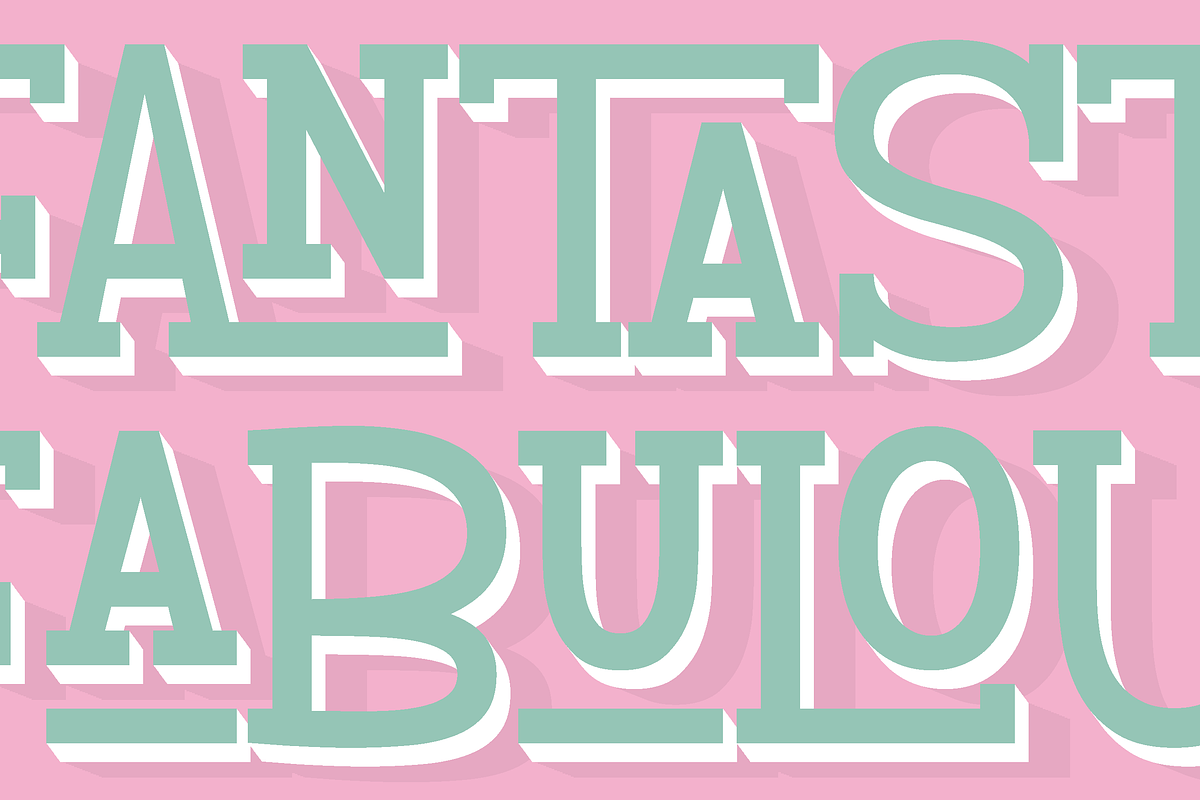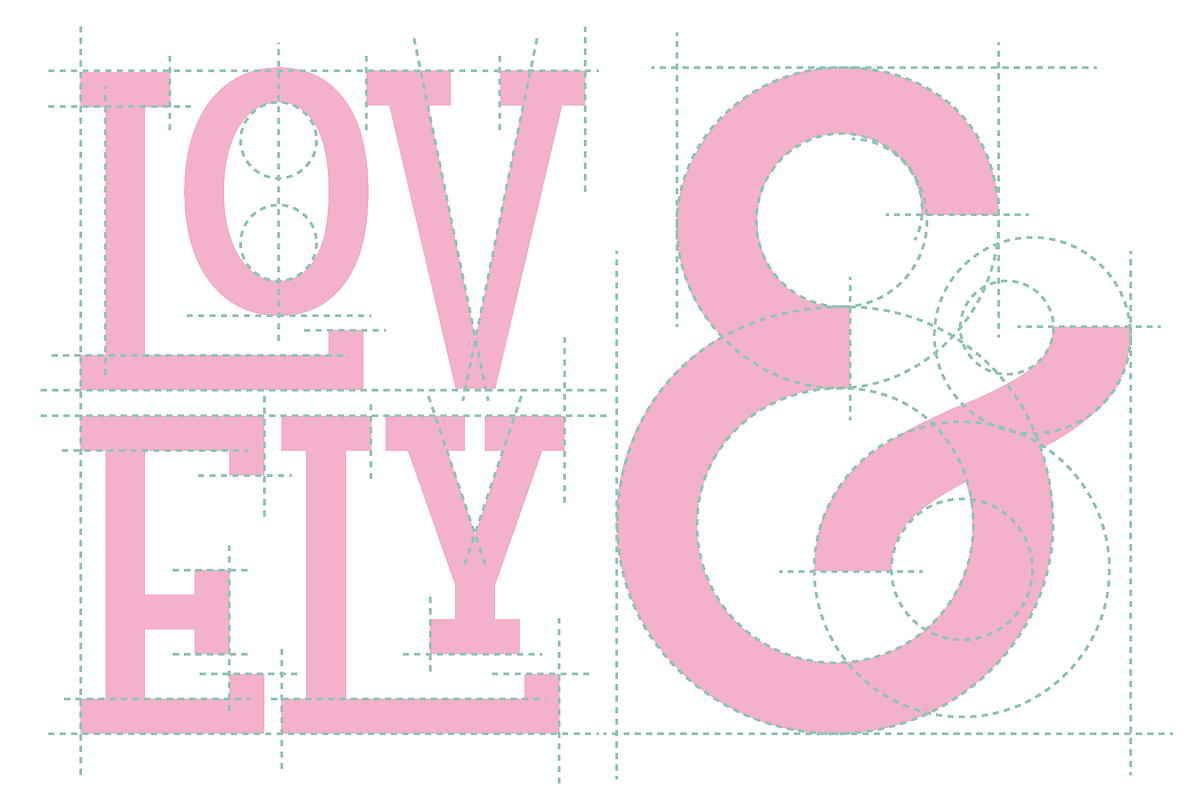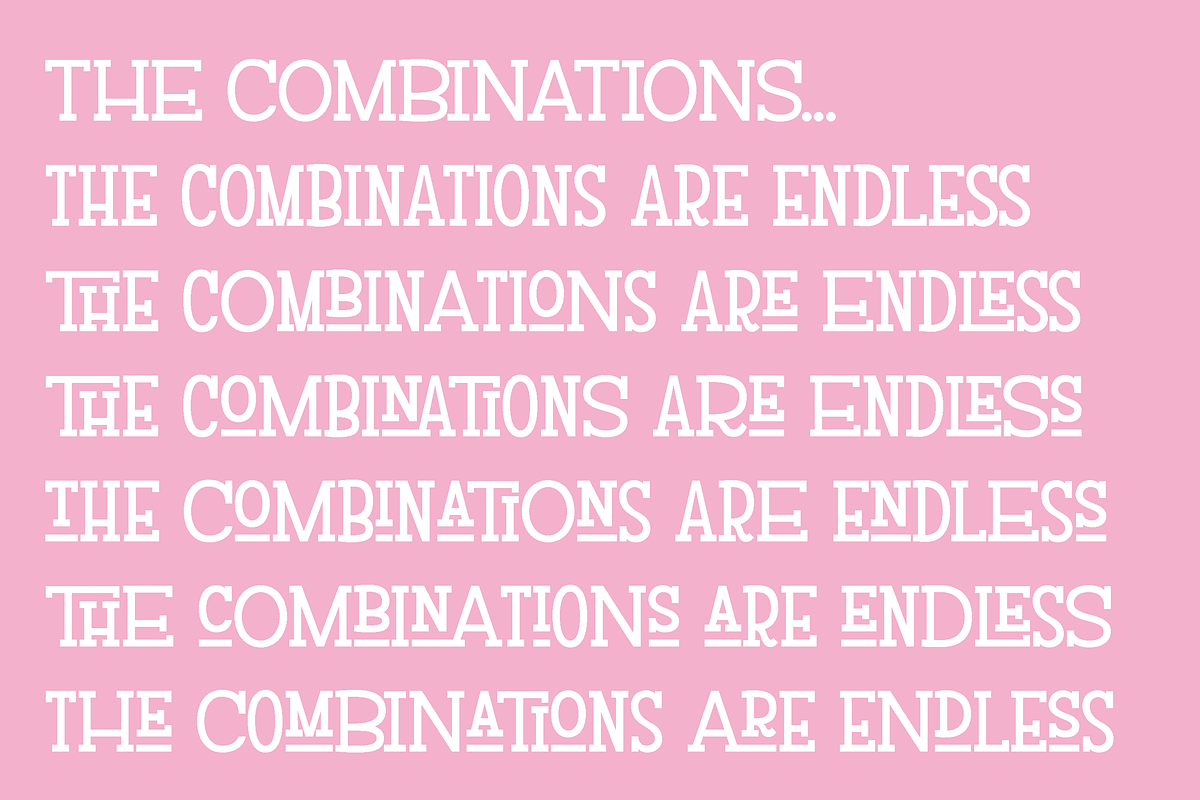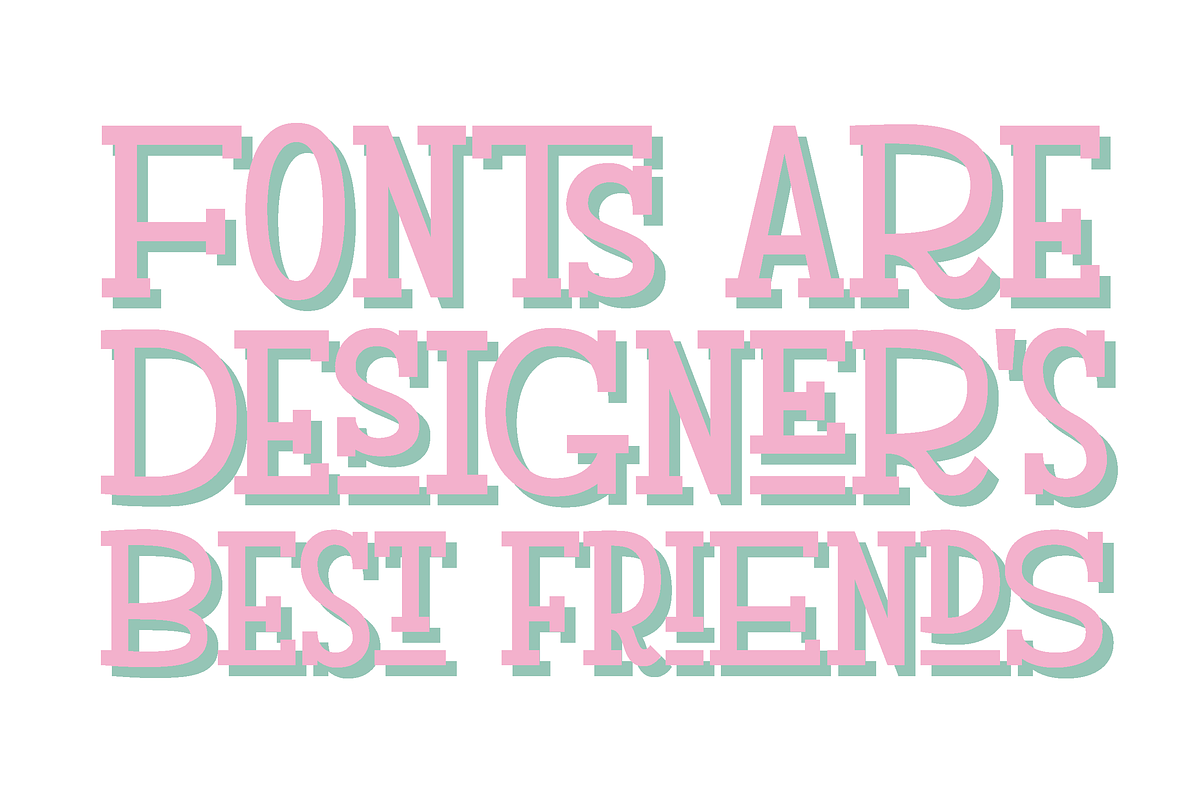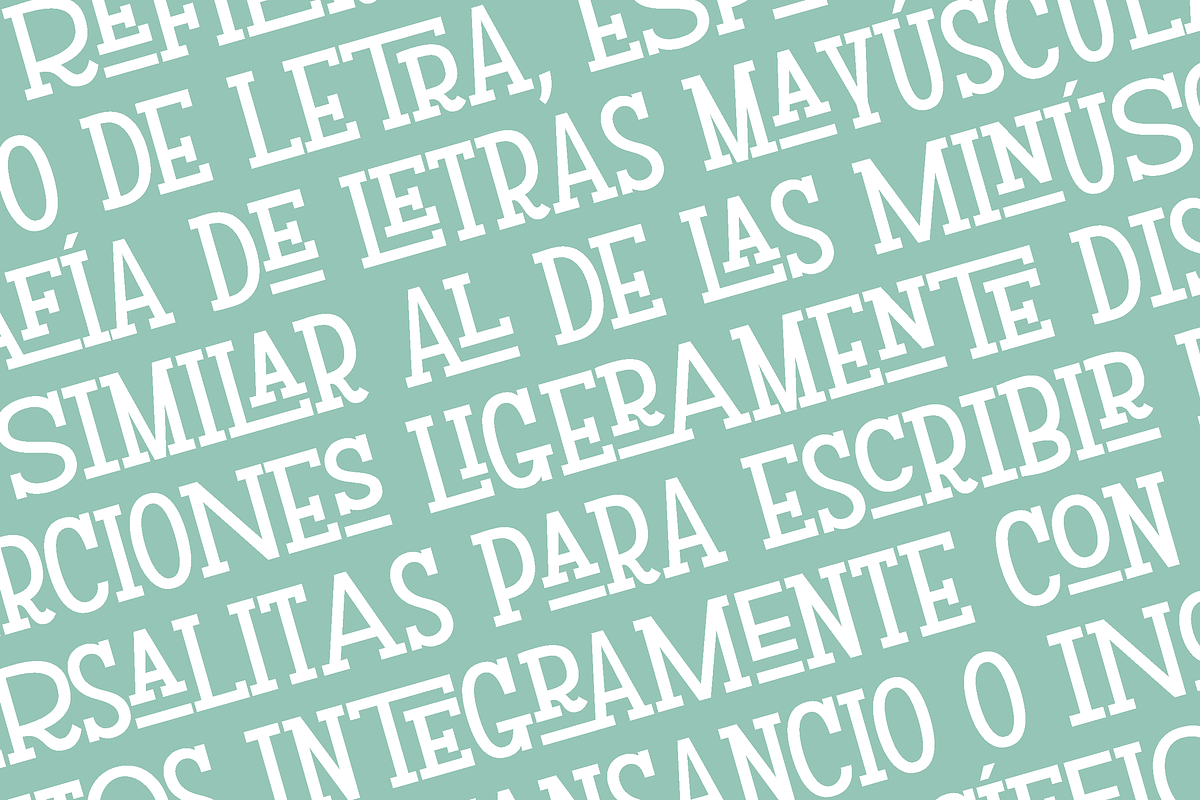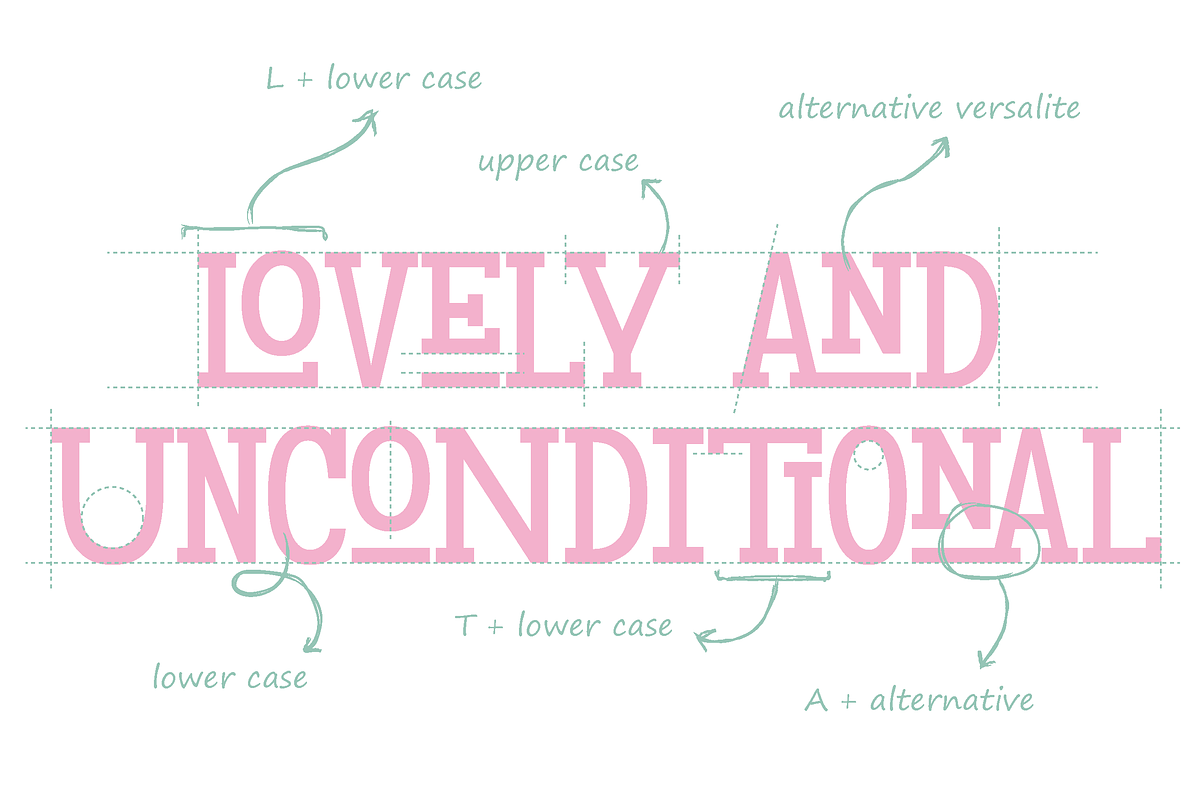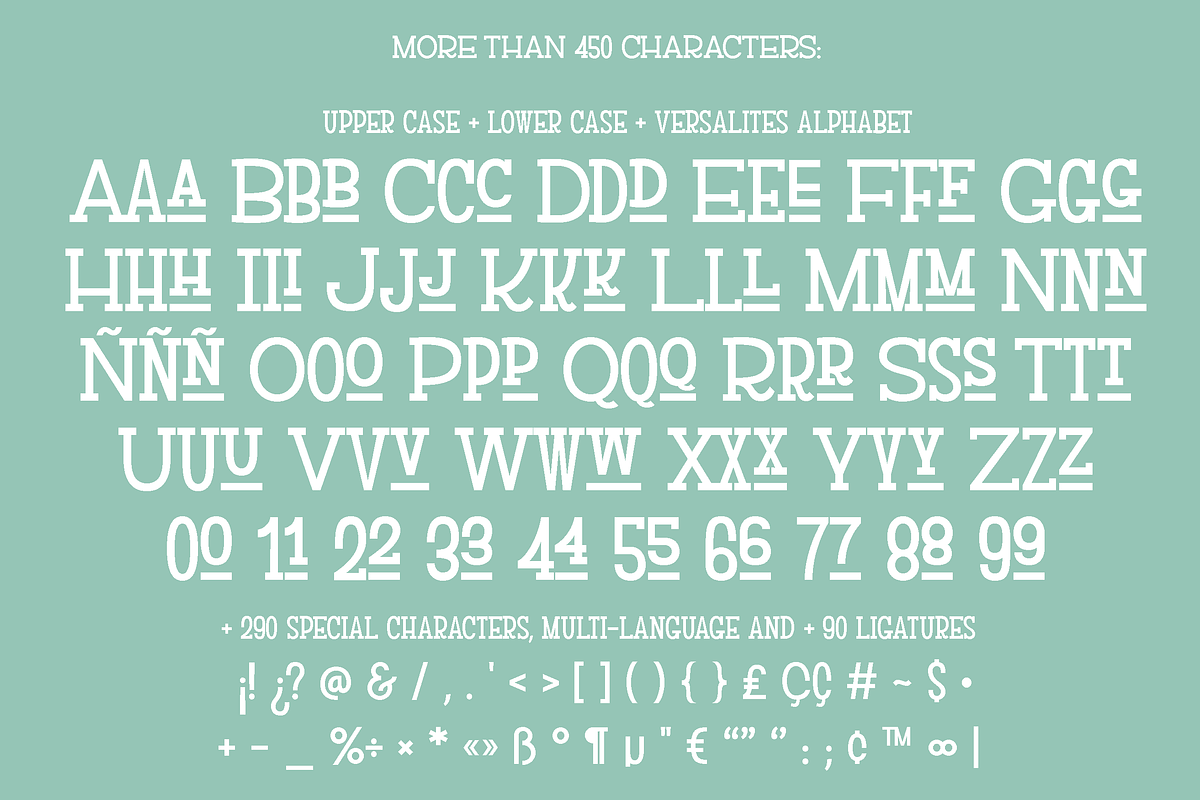
Versalita&Serif - Font
MIX THE LETTERS with originality with THREE ALTERNATIVES for each LETTER!!!
This is VERSALITA&SERIF (maybe better than Versalita&, the sans serif version), a serif font that contains upper case, lower case in versalite, and an alternative of every letter in a smaller size. The idea is that everyone could have the possibility to mix the letters and create multiple alternatives of the same words!
More than 450 characters, containing:
Lower case (versalites)
3rd letter alternative (small size)
Numbers (normal & alternative versalite)
Special ligatures (+90)
Punctuation symbols, numbers, and other special characters (+290)
Multi-language characters